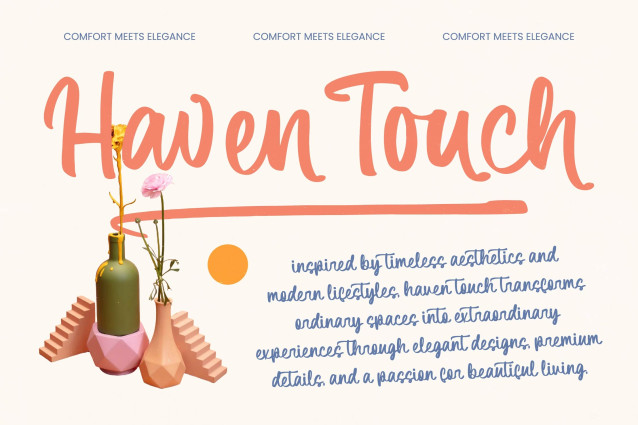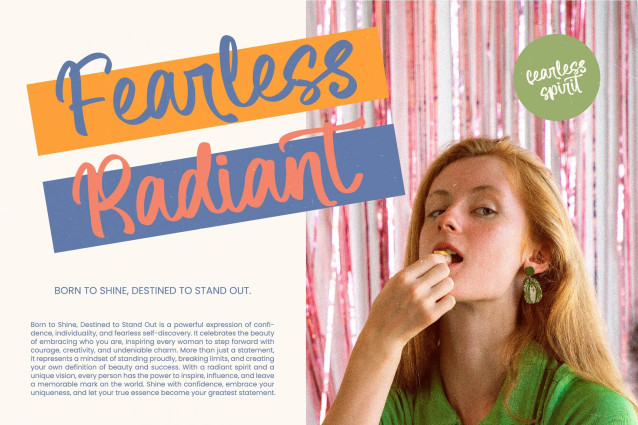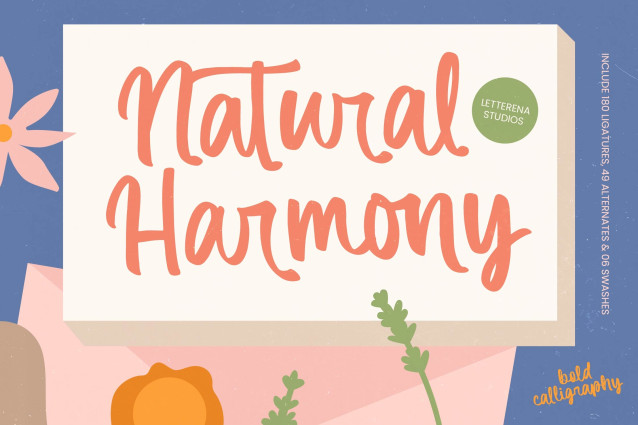
Natural Harmony – Bold Calligraphy is a masterclass in handcrafted aesthetic, blending the warmth of traditional ink-work with a modern, high-impact presence. Its bold weight ensures maximum legibility while maintaining an artistic flair that feels both personal and professional, making it an essential addition to any designer’s toolkit seeking to balance fluidity and strength.
Precision-engineered for high-impact visual storytelling, this font is the ultimate choice for professionals seeking a sophisticated identity. Natural Harmony – Bold Calligraphy is perfect for luxury branding, premium packaging, and editorial design where a distinctive human touch is required. Whether you are crafting high-end cosmetics labels, boutique logos, or inviting lifestyle graphics, this typeface delivers a seamless blend of style and substance that resonates with discerning audiences globally.